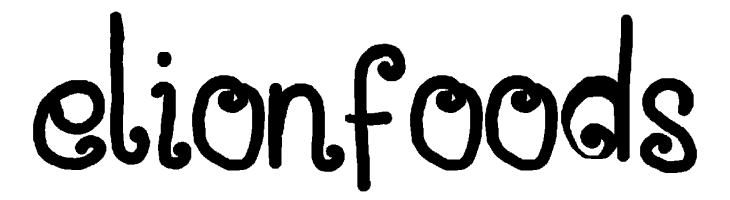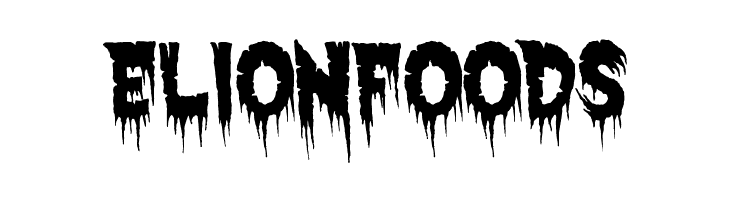
A playful, hand-drawn font with curly, looping strokes and decorative swirls.
A bold, dripping font with a horror-inspired, decorative style.
A dot-based, digital-style font with a modern, pixelated appearance.
An elegant italic serif font with refined strokes and balanced proportions.
A classic serif font with elegant curves and moderate contrast.
A bold and italic font with high contrast and strong presence.
A bold, robust font ideal for impactful and commanding designs.
A distressed, textured font with a rugged, vintage appearance.
A bold, italic font with sharp, angular edges and a dynamic style.
A bold, extended, and italic font with sharp, angular edges and a futuristic style.
A bold, blocky font with a vintage, industrial feel.
A bold, decorative font with unique star embellishments and extended characters.
A bold, italic, and dynamic font with high contrast and decorative elements.
A bold, vintage-style font with Western-inspired serifs and decorative elements.
A bold, Western-inspired font with sharp, decorative elements.
A bold, italic font with angular serifs and a dynamic, energetic style.
A futuristic, geometric italic font with sharp angles and a digital aesthetic.
A futuristic, geometric font with a digital and sci-fi aesthetic.
A futuristic, bold, and angular font with a geometric design.
A bold, angular italic font with a dynamic and modern style.
A bold, italicized font with sharp angles and a dynamic, modern style.
A bold, angular font with a gothic, medieval flair.
A bold, angular font with a modern, gothic-inspired design.
A modern italic font with smooth curves and a dynamic style.
A bold, modern font with elegant curvature and strong character presence.
A modern, bold font with a playful yet professional style.
A bold and dynamic font with strong, elegant characters ideal for impactful designs.
A bold and robust font with thick strokes and a modern yet classic style.
A bold, blocky font with a strong, authoritative presence.